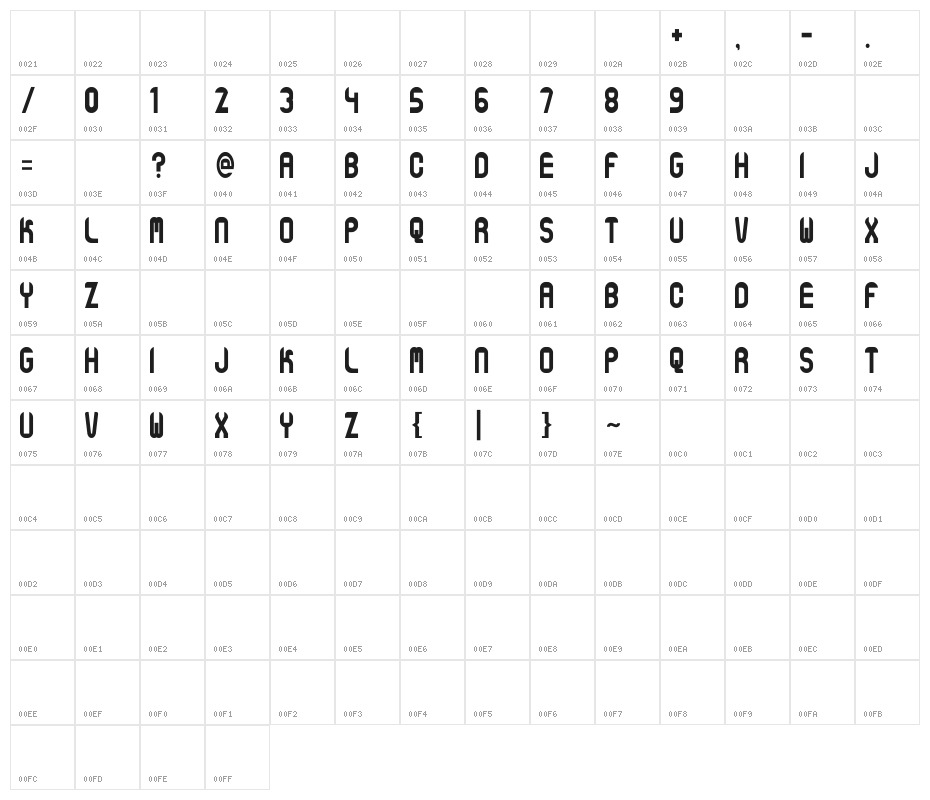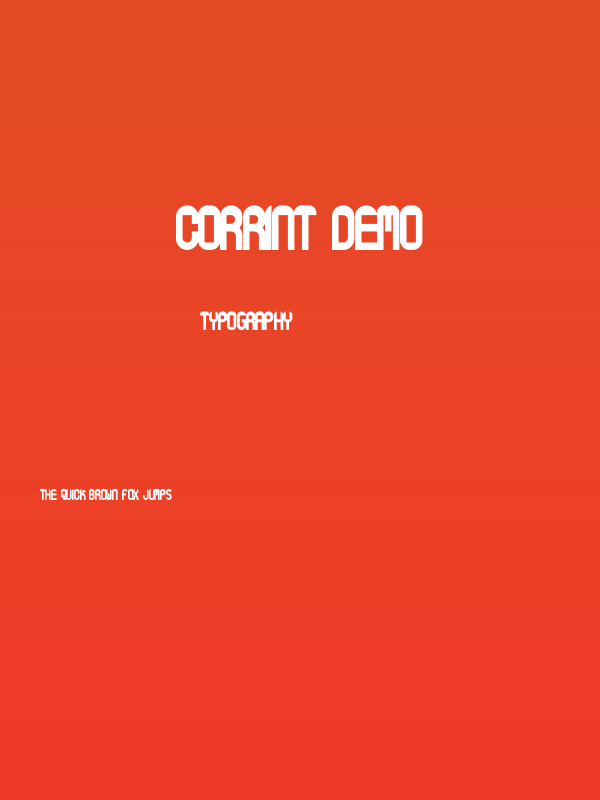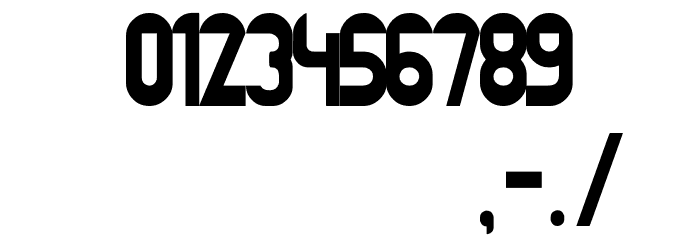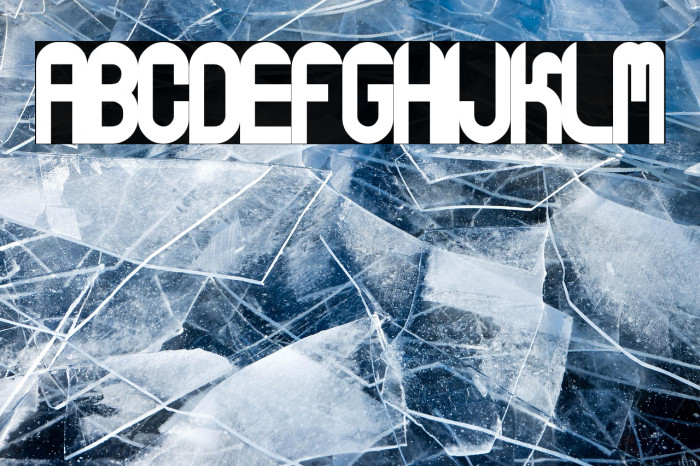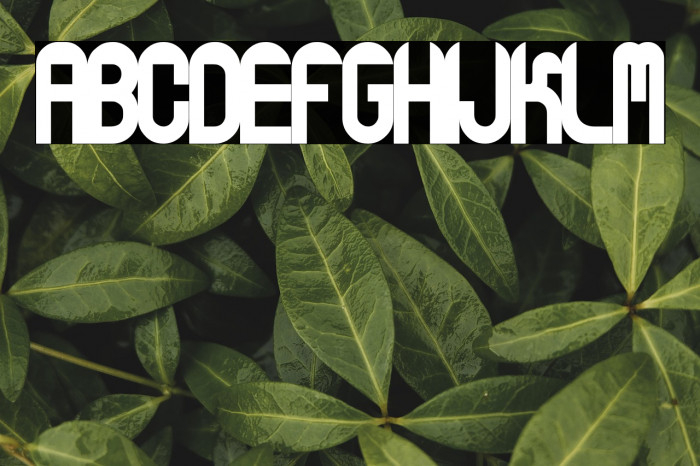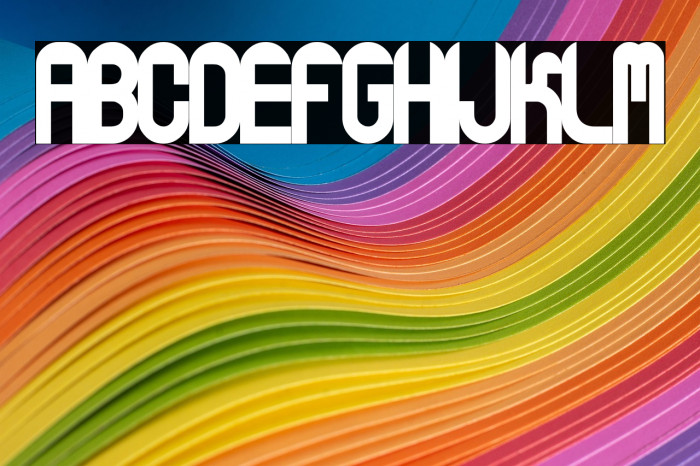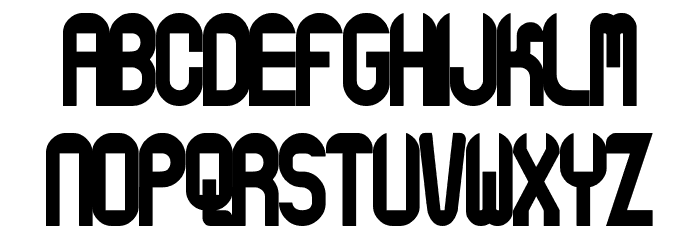
Corrint Demo Font
Corrint Demo Description
This font features a bold and geometric style with a strong emphasis on vertical and horizontal lines. The characters are constructed with thick strokes and rounded edges, giving it a modern and futuristic appearance. The uppercase letters are uniform in height, while the lowercase letters maintain a consistent style, enhancing readability. The numerals are distinct and align well with the overall design, making them suitable for digital displays. The special characters are crafted to match the boldness and geometric nature of the font, ensuring a cohesive look across all elements.
| Proposed Projects | Ideal for digital displays, tech branding, futuristic posters, and modern graphic design projects. |